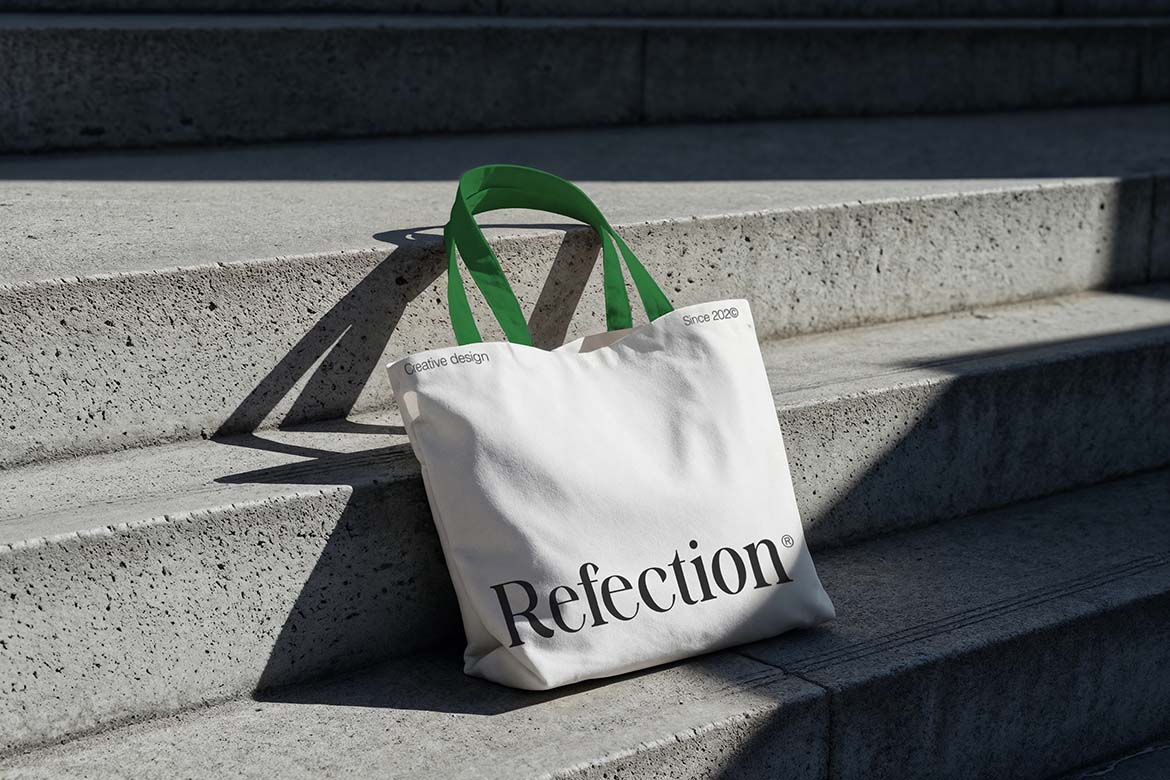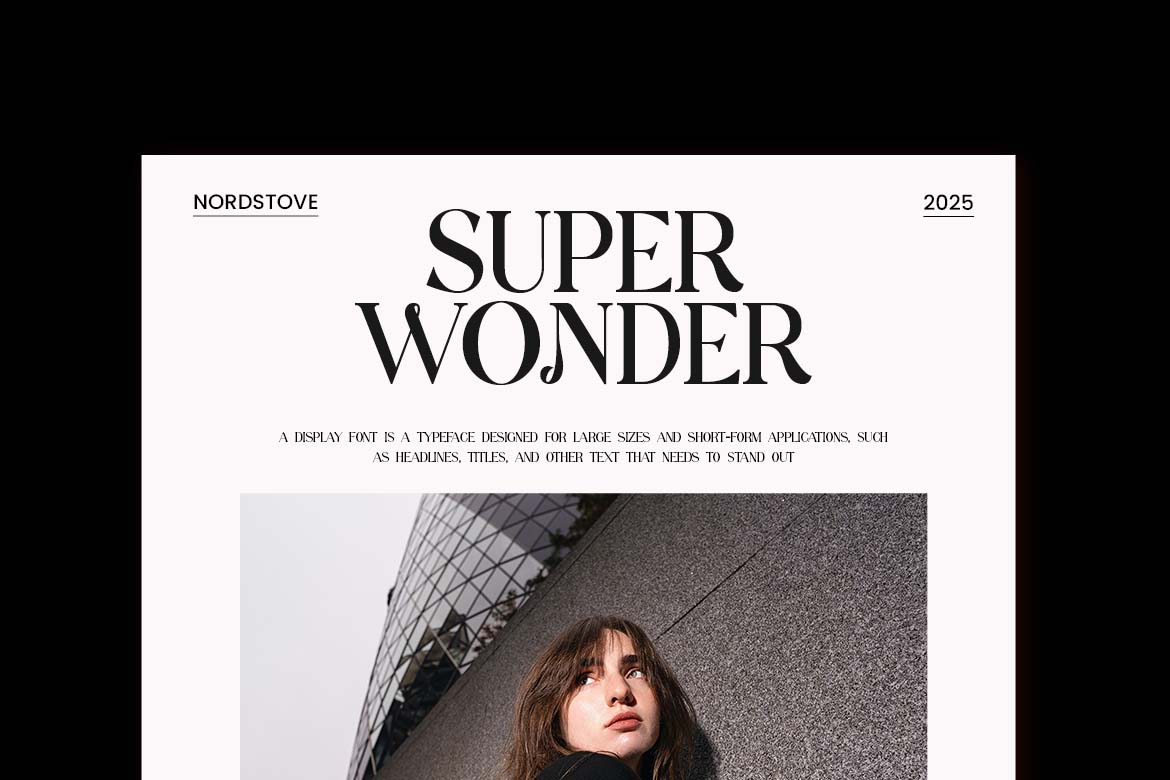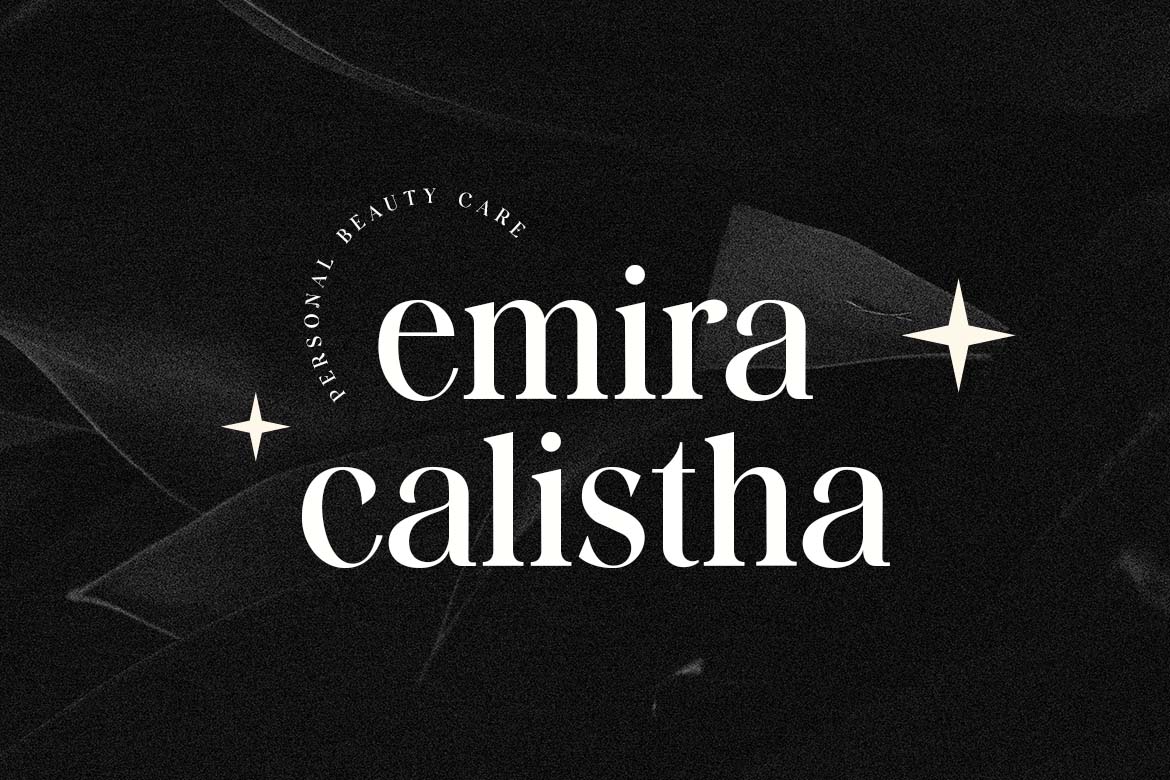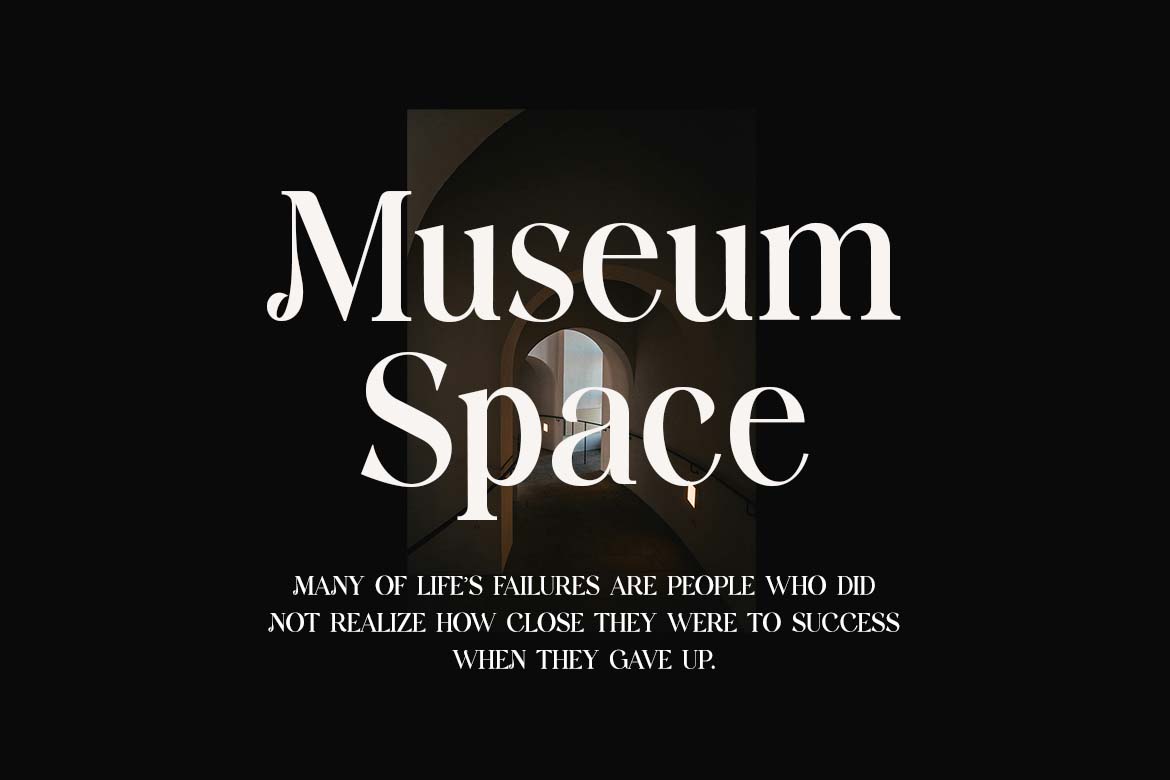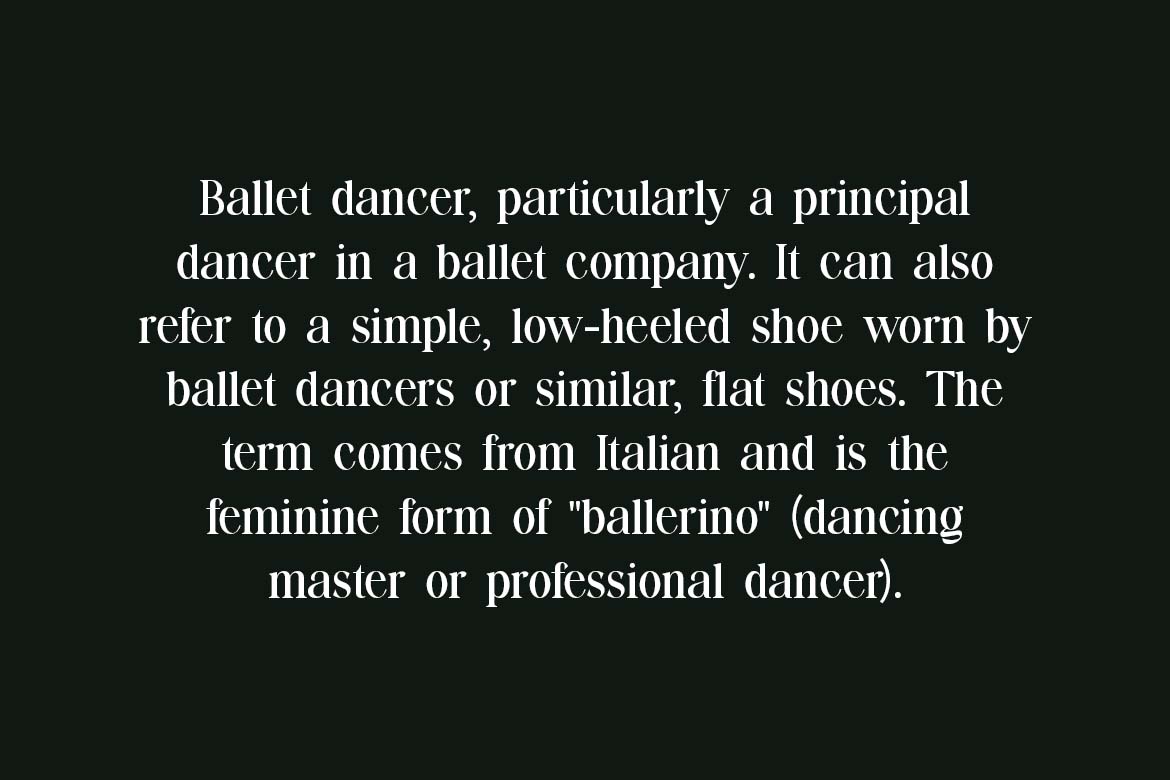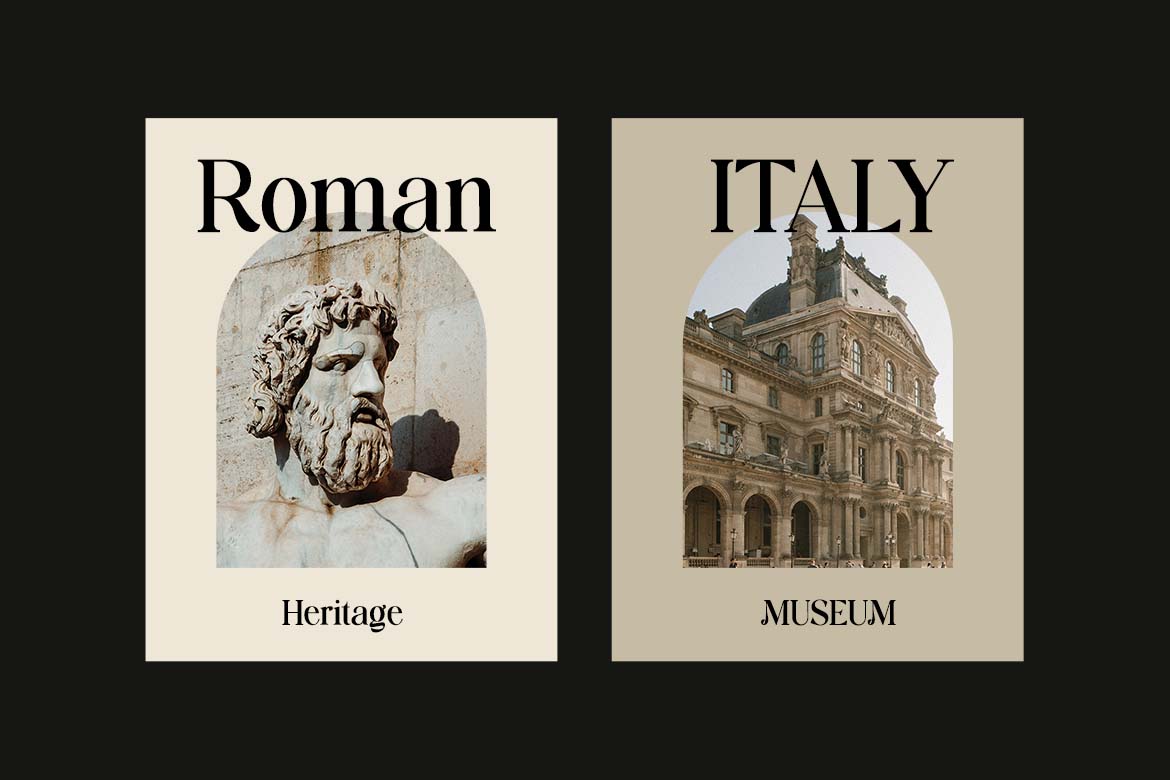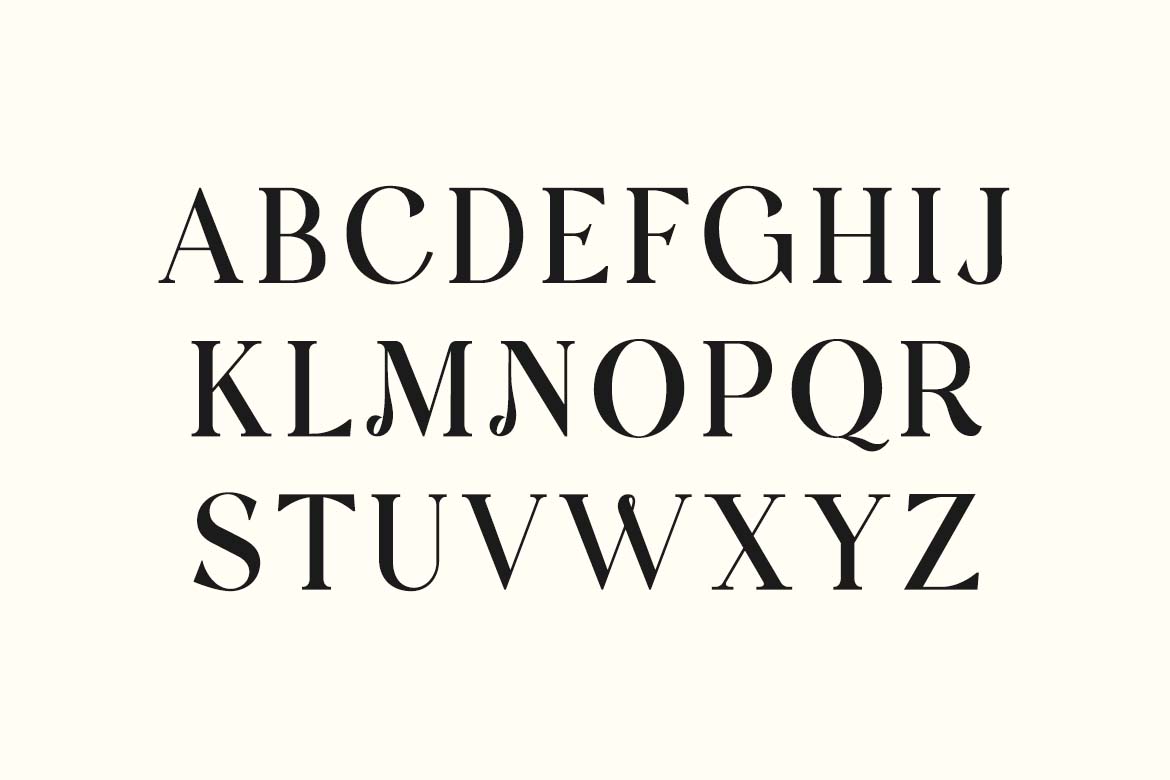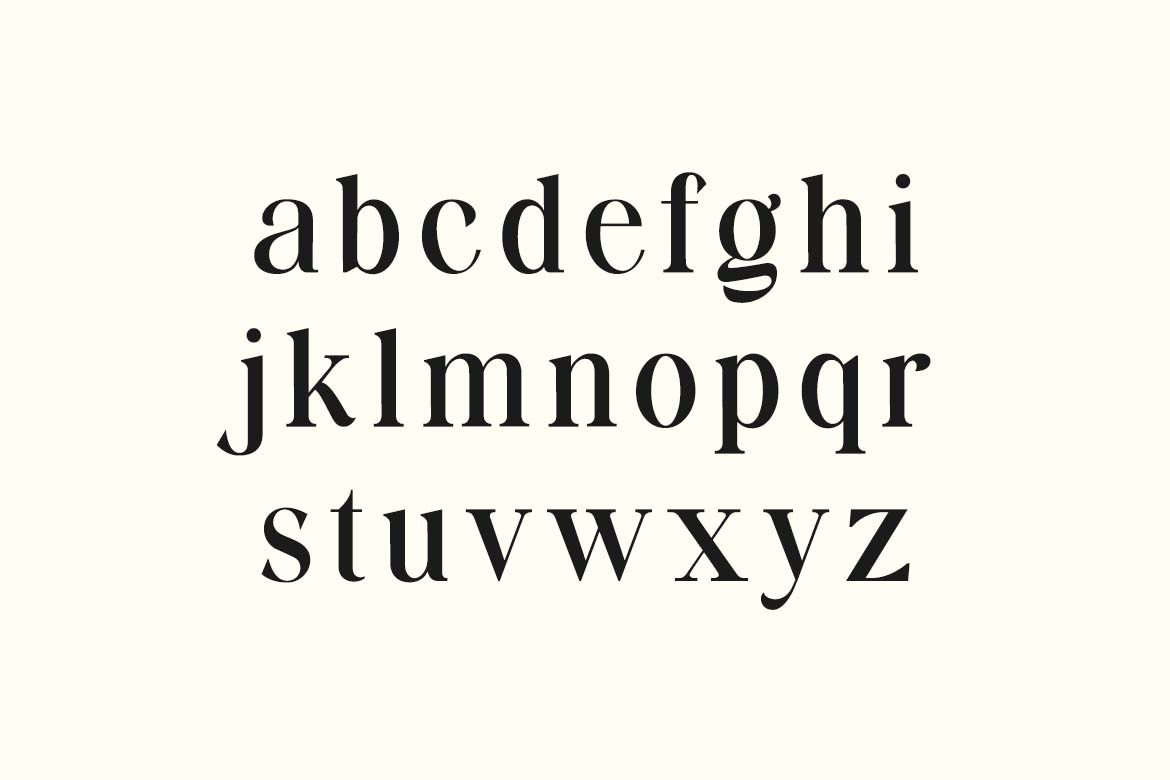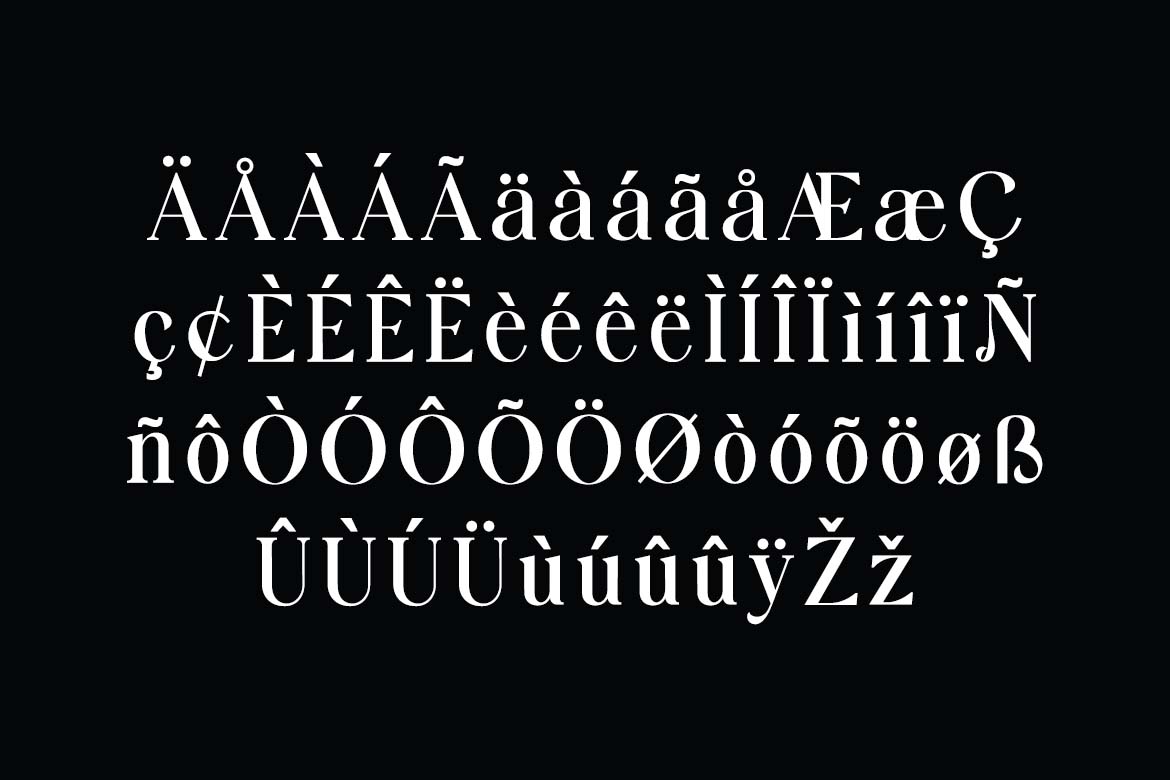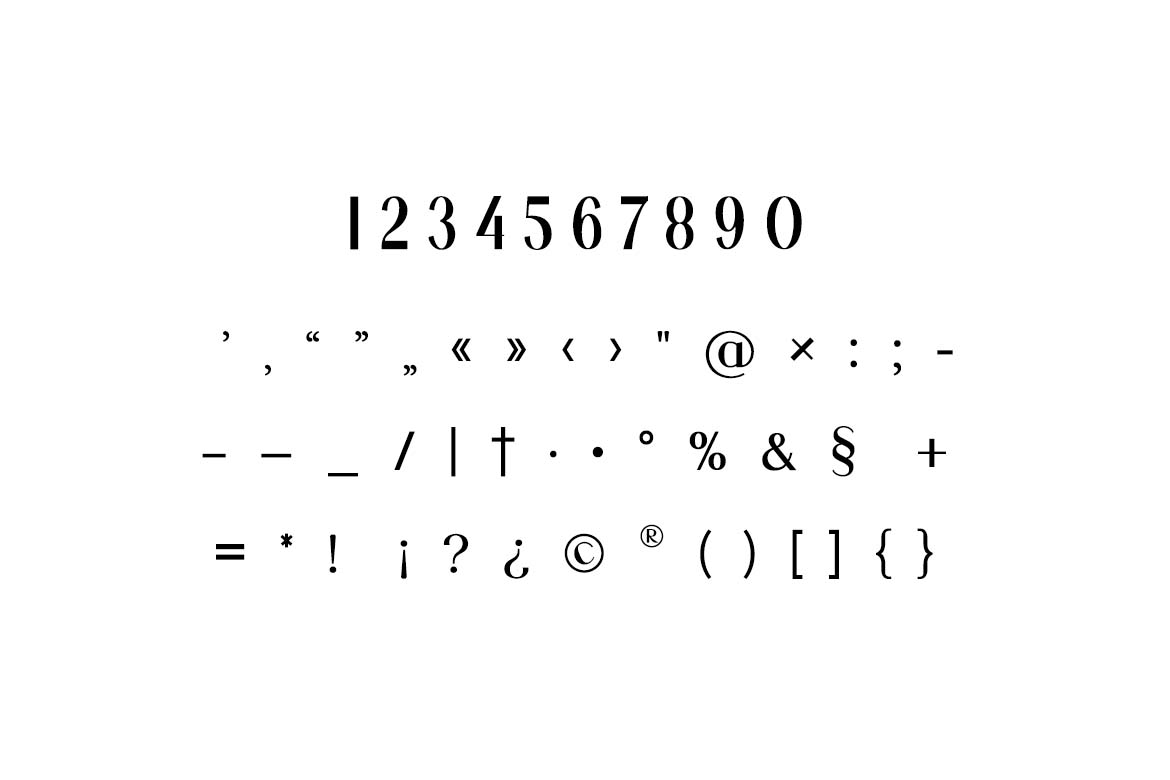
Manifesto Classic Modern Elegant Serif Font
Manifesto Classic Modern Elegant Serif Font. The modern display font feels beautiful classy, elegant, and stylish. This font is ideally suited for a wide variety of projects, such as signature, stationery, logo, wedding, typography quotes, magazine or book covers, website headers, branding, and more. Also, fashion-related branding or editorial design displays both masculine and feminine qualities.